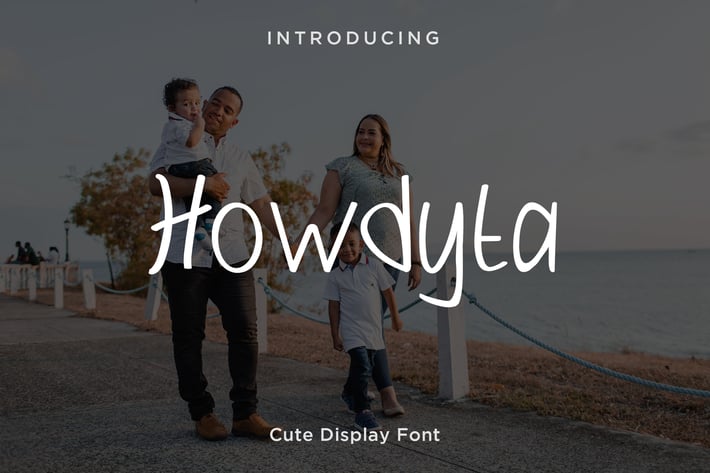
Howdyta - Cute Display Font
Howdyta - Cute Display Font is a Handwritten Sans-Serif Font with a cute characteristic.
This font is best for quote, greeting cards, wedding invitation, stationery, advertisements, product packaging, diy, label, and any event with kids and family.